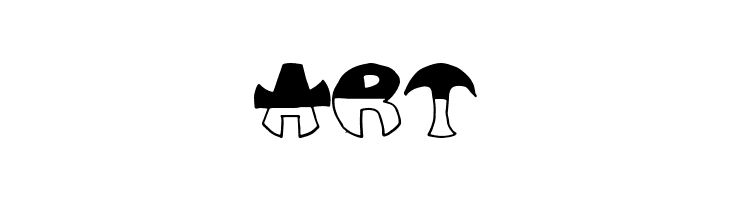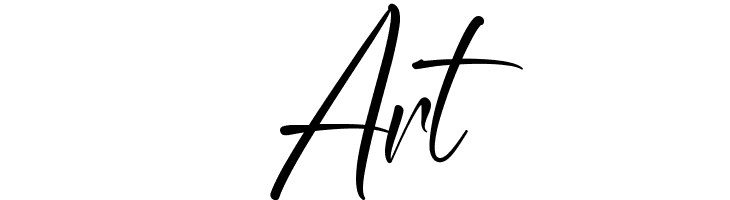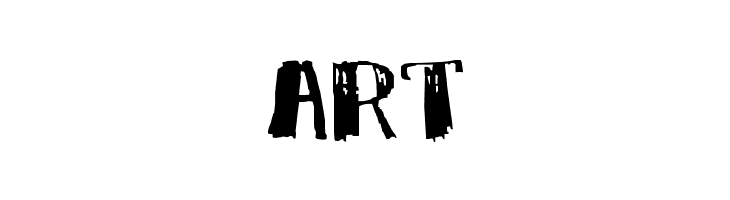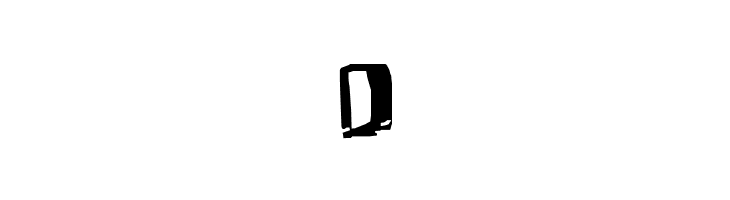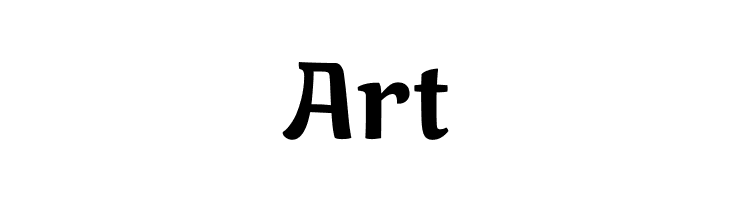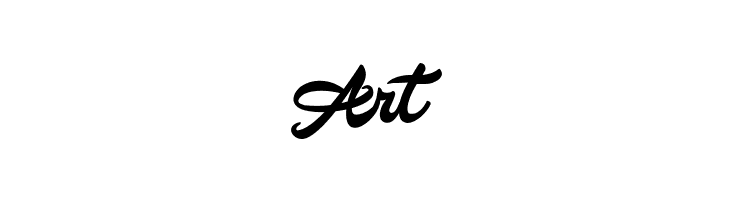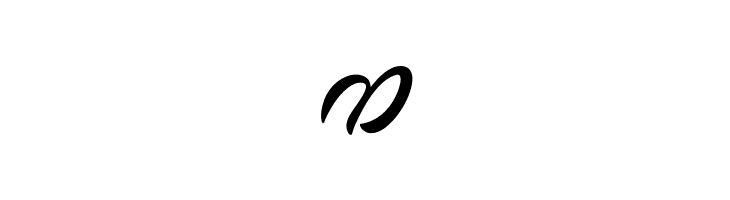
A bold, cursive script font with a shadow effect for a 3D look.
A bold, cursive script font with a lively, handwritten style.
A playful, bold outline font with a hand-drawn, casual appearance.
A bold, geometric font with dynamic shapes and creative negative space.
A modern serif font with playful curves and a bold presence.
A rugged, distressed font with sharp, jagged edges and a rebellious style.
A modern serif font with rounded serifs and smooth curves, offering clarity and style.